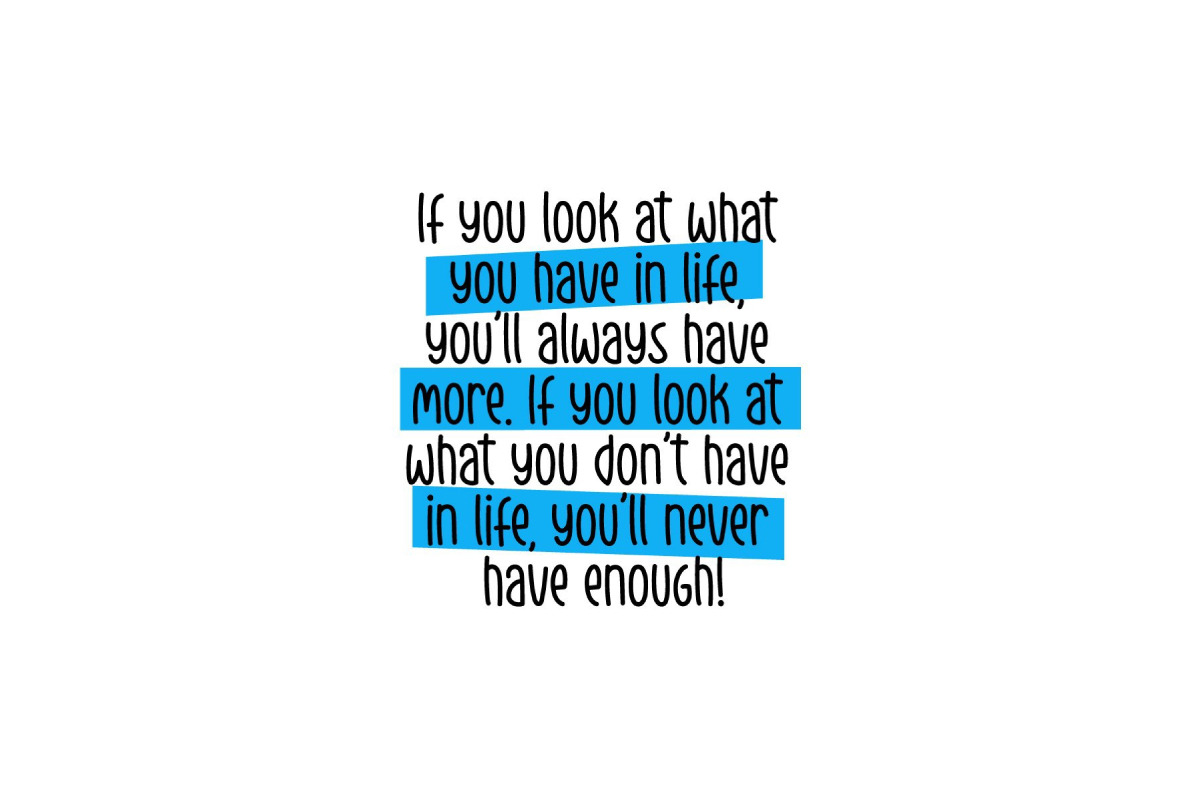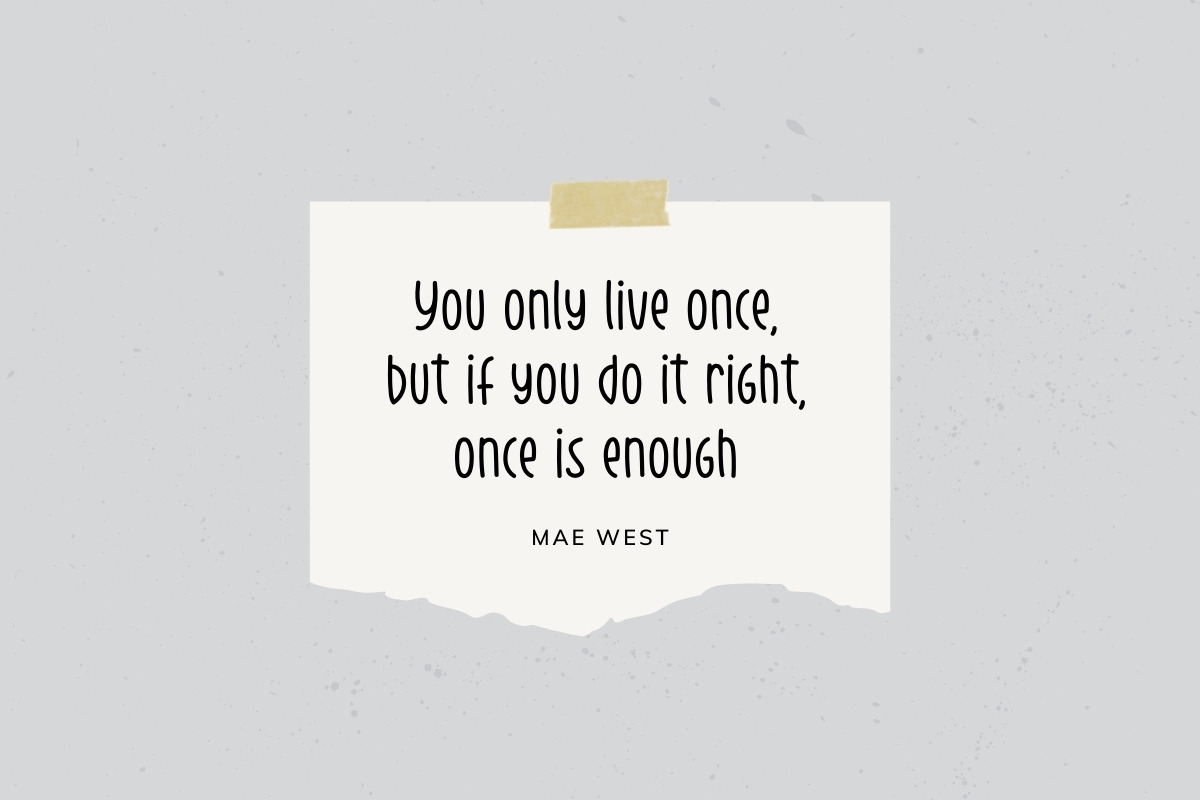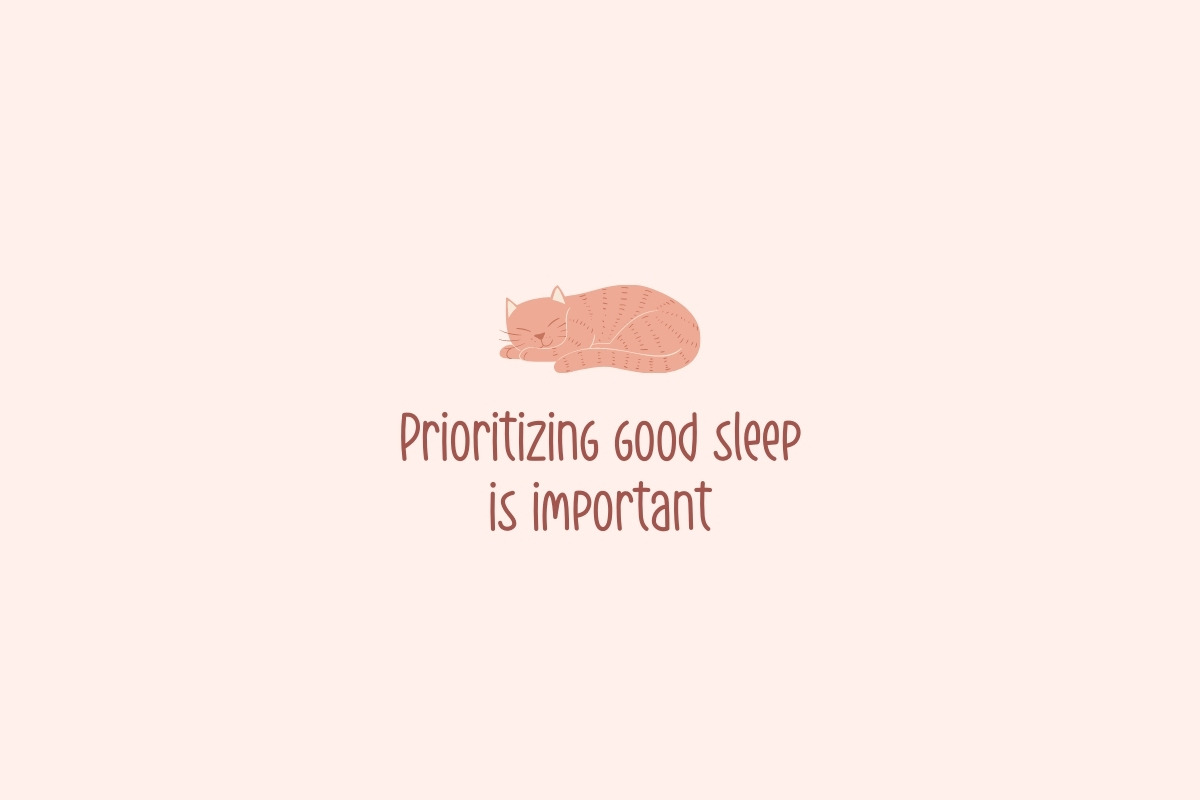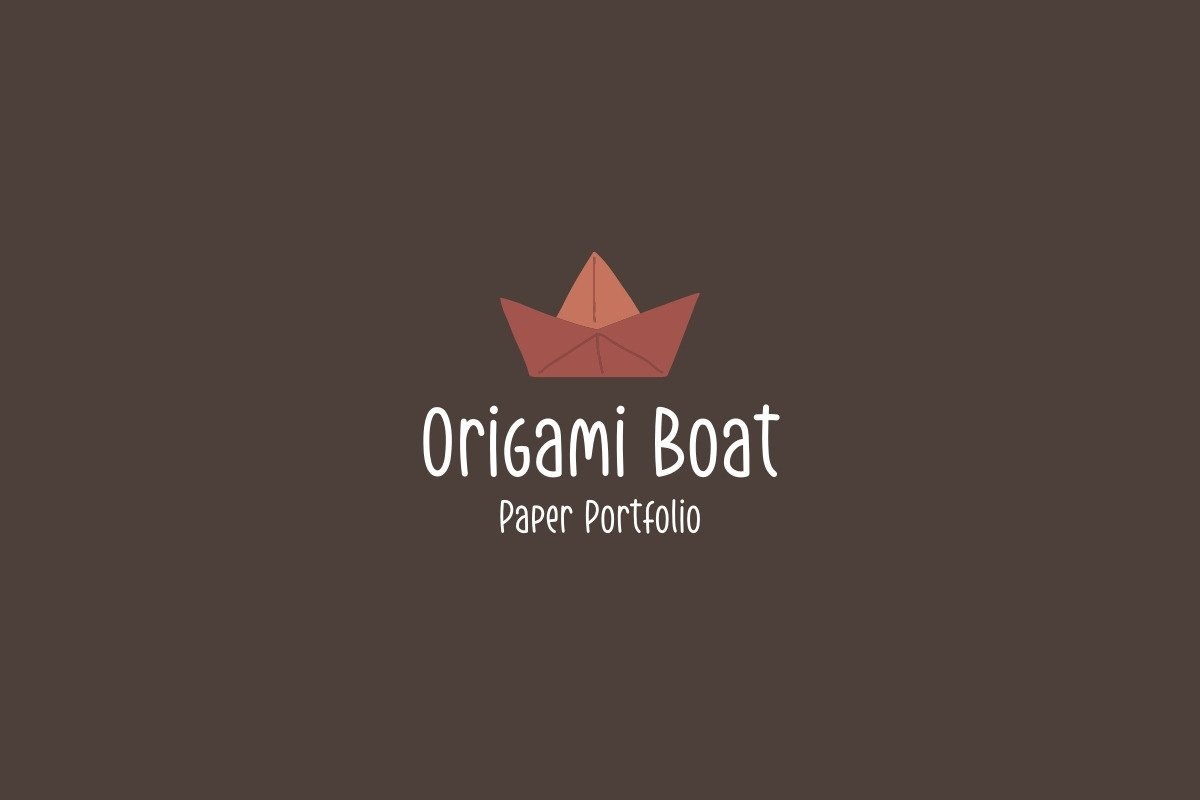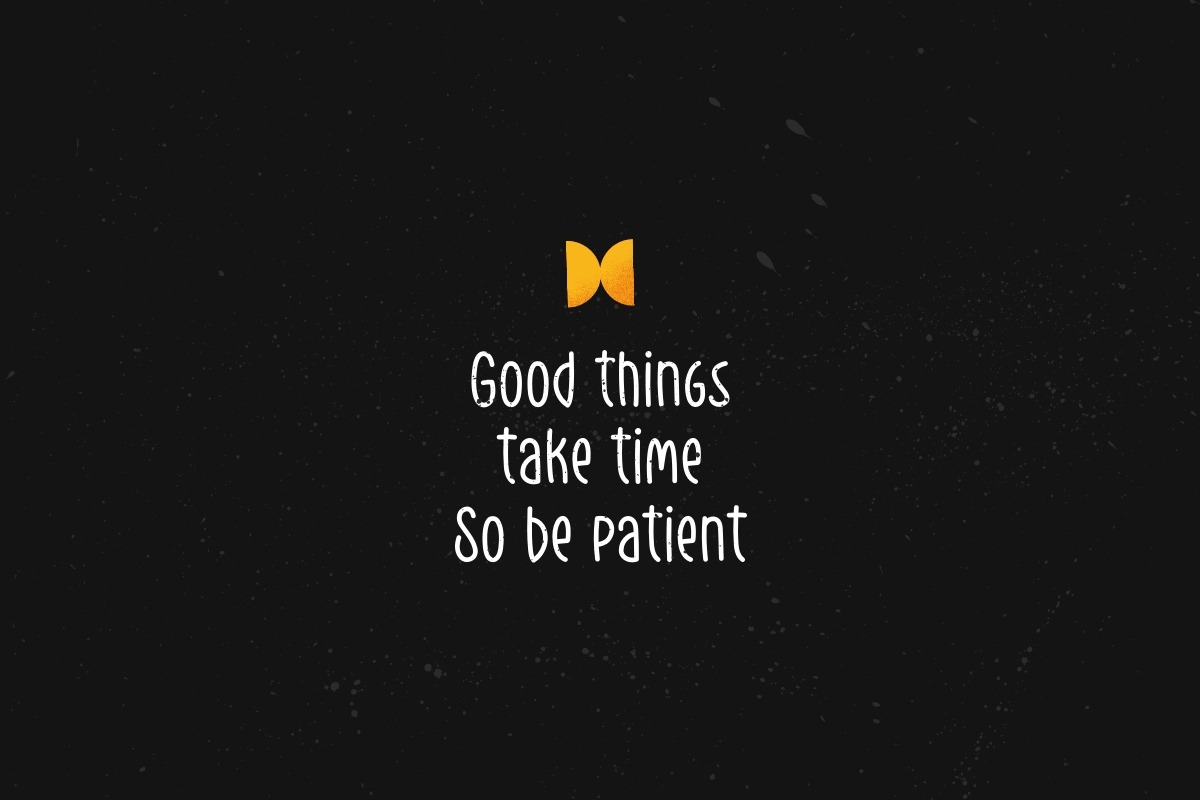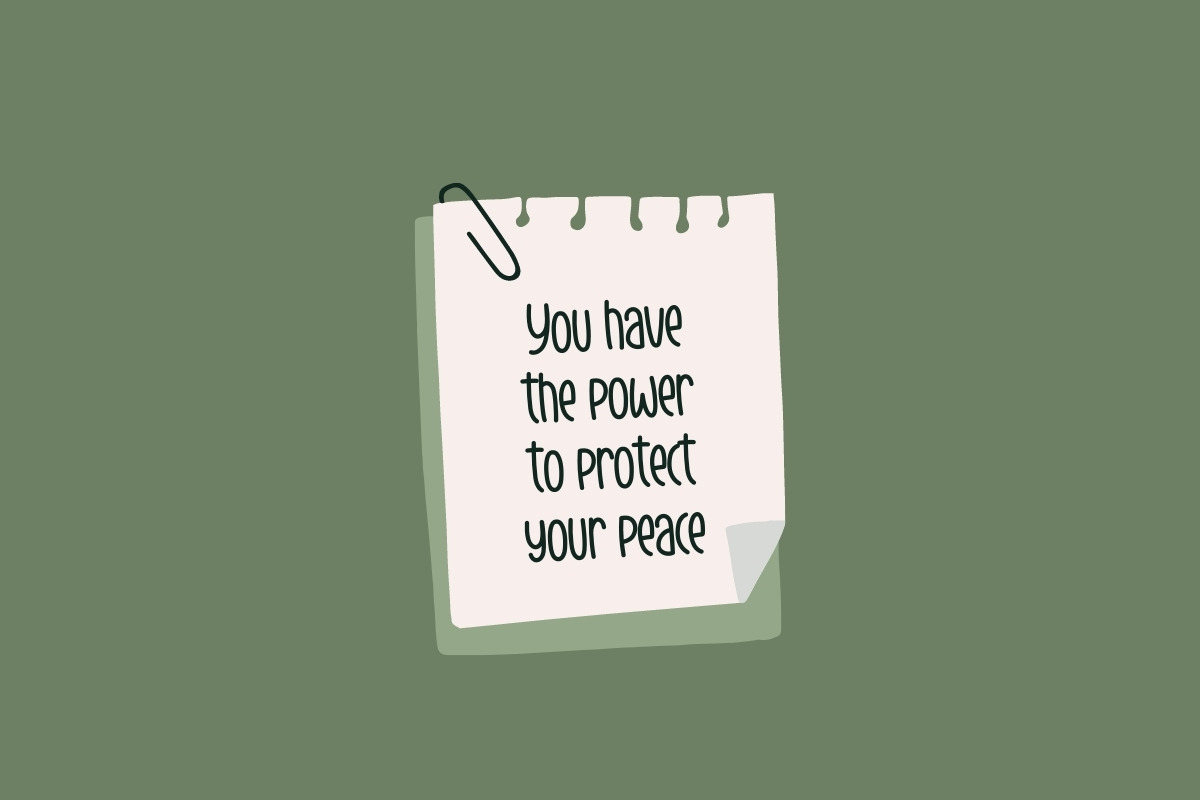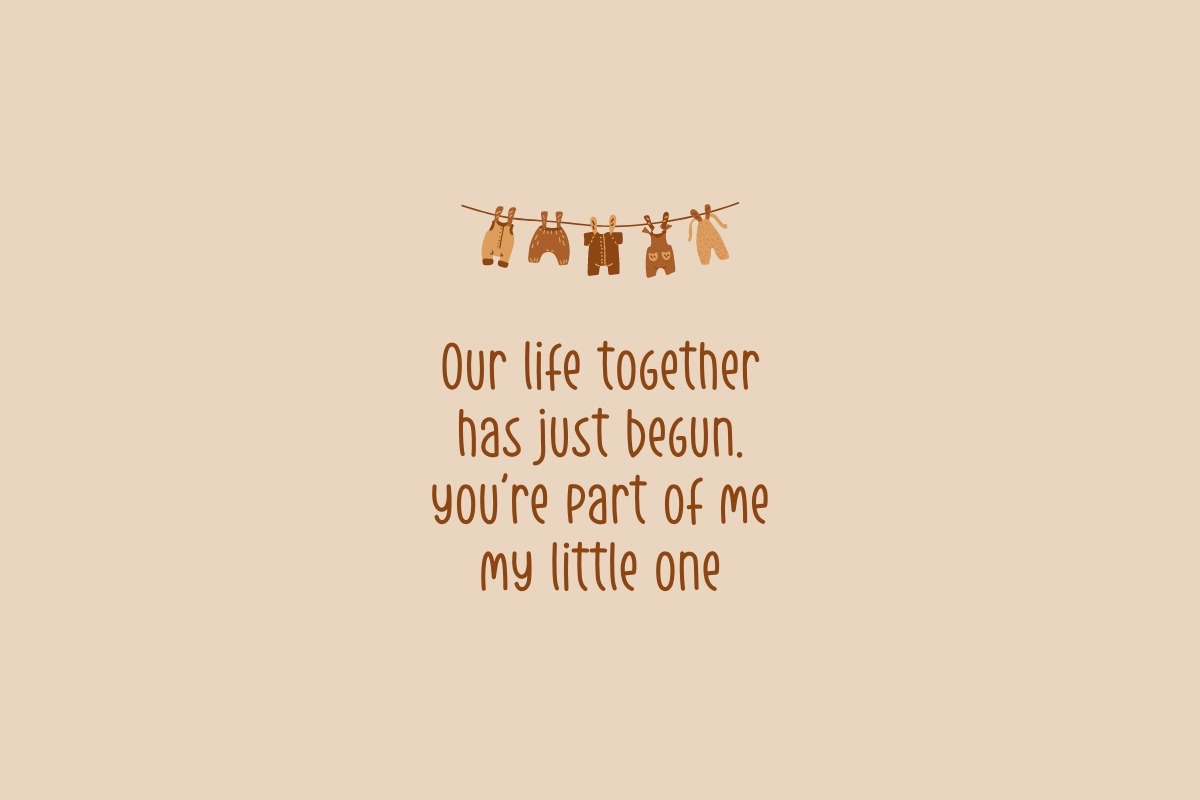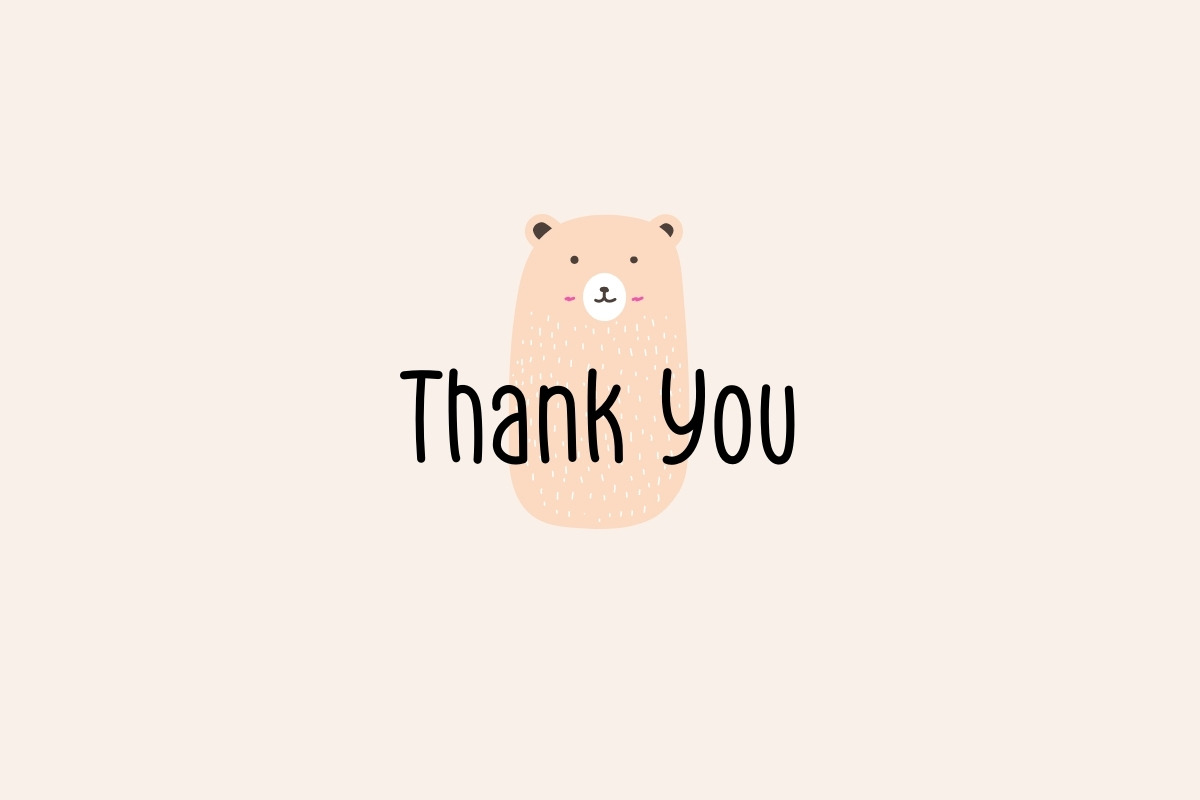
Super Monday
Super Monday is a cute and simple hand-lettered bubbly sans serif font. This font is very simple and fun to use! Super Monday is perfect for create a quotes, logo, badge, insignia, packaging, headline, poster, t-shirt/apparel, greeting card, party invitations, baby showers, birthday cards and more. This font awesome for kids and school and support multilingual language.